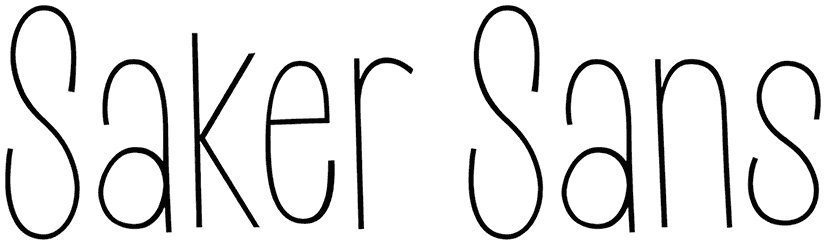
Saker Sans Font
If you are frustrated with wasting a lot of time and energy finding a suitable font to design creative ideas such as e-books, the user interface of applications, or product packaging, Saker Sans would be ideal.
Aside from the lack of numbers, the good news about this artwork is that all characters of this sans serif font are designed in five distinctive weights, thus broadening your horizons and letting you share a sense of dynamic, modernity, or majestic.